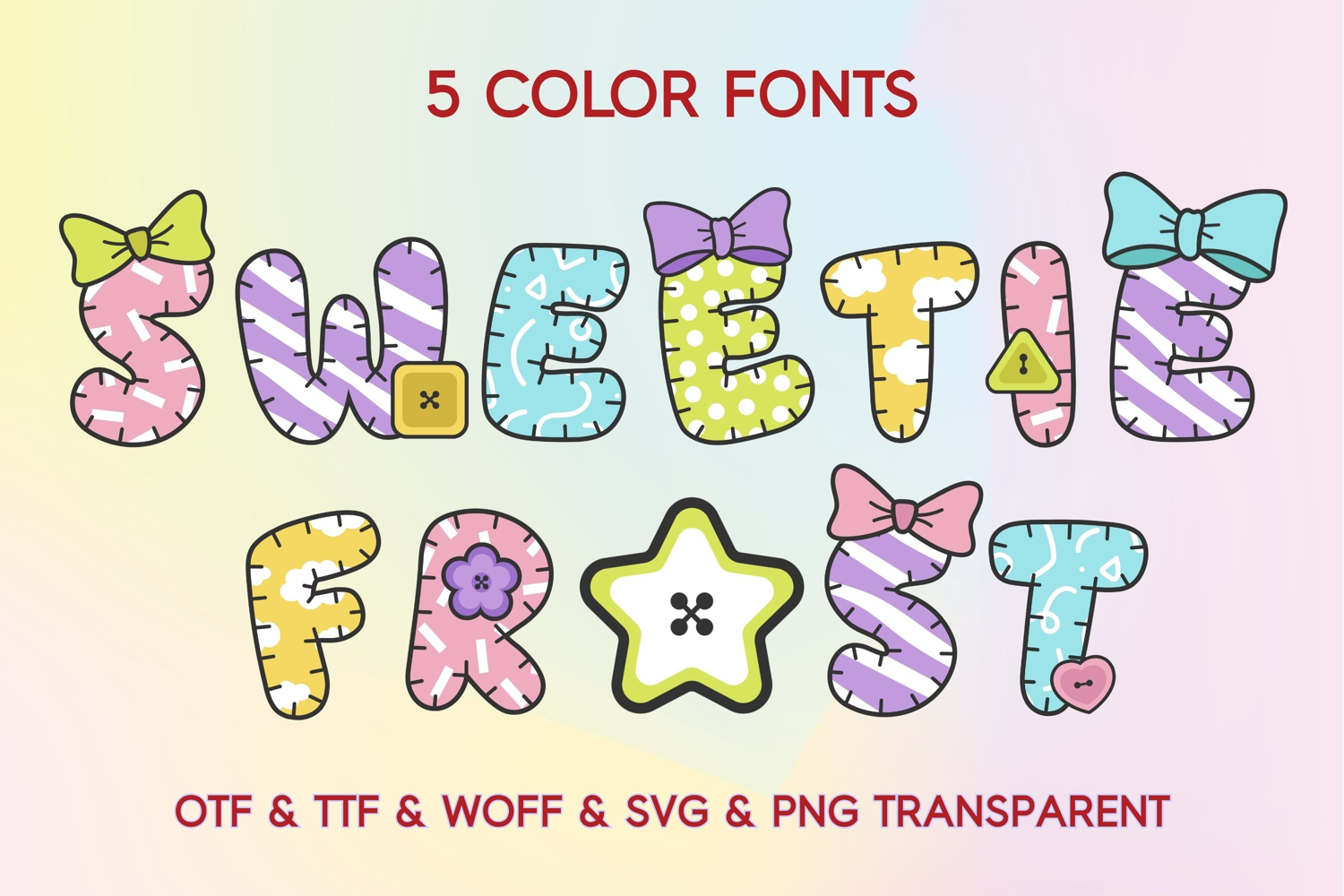
Sweetie Frost - 5 Color fonts
Add a touch of sweetness to your creative projects with the Sweetie Frost Color Font Bundle! This adorable collection includes 5 playful handcrafted color fonts featuring unique patterns, stitched details, and charming decorative accents. Each font comes with uppercase letters, numerals, punctuation, and bonus decorative elements including bows, hearts, flowers, buttons, and cute geometric shapes.
Perfect for sublimation, stickers, nursery decor, baby shower invitations, birthday party designs, classroom resources, scrapbooking, greeting cards, Cricut projects, print-on-demand products, and Kawaii-themed creations.
• 5 Color Fonts
• Uppercase Letters A–Z
• Numerals 0–9
• Punctuation Characters
• Bonus Decorative Elements